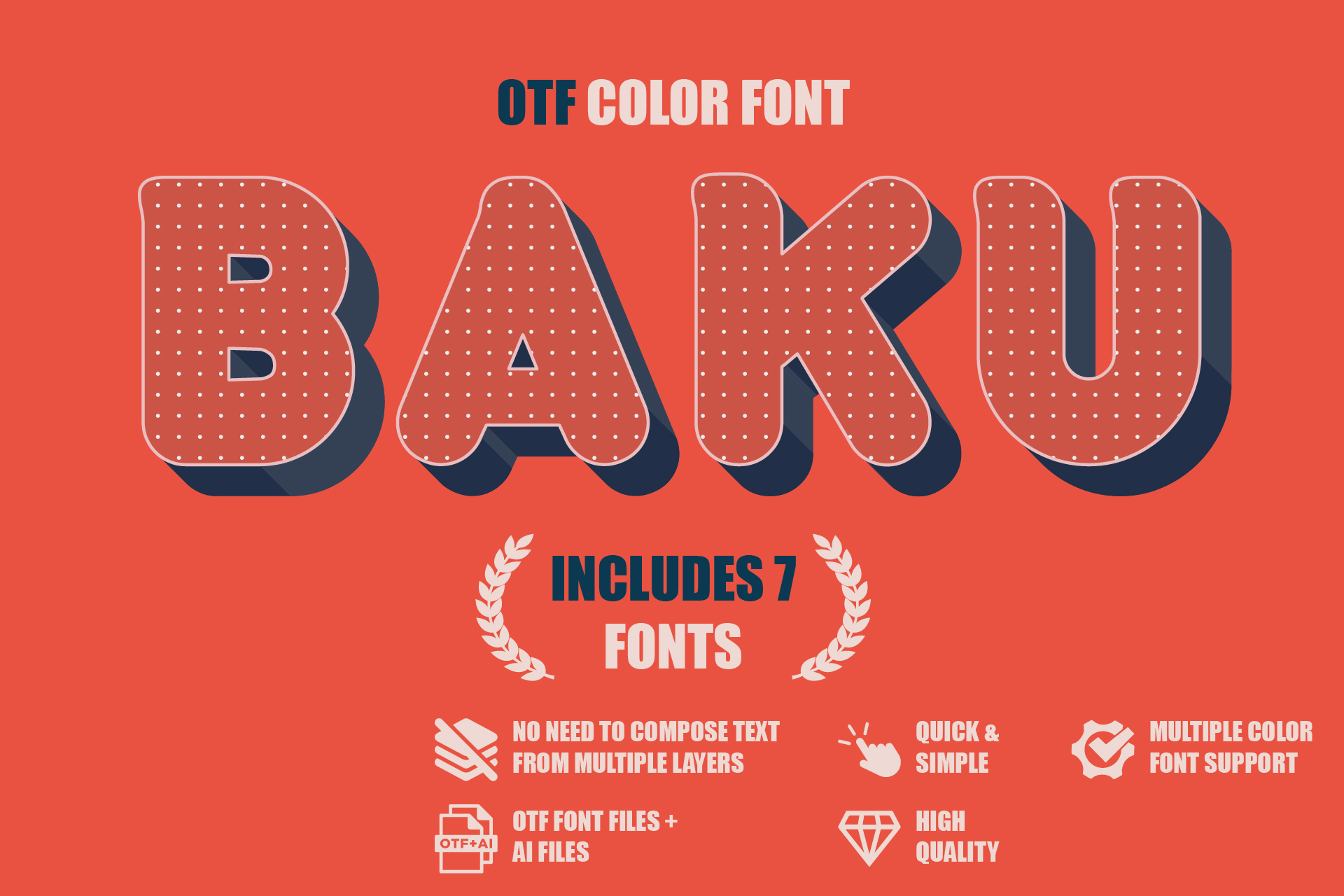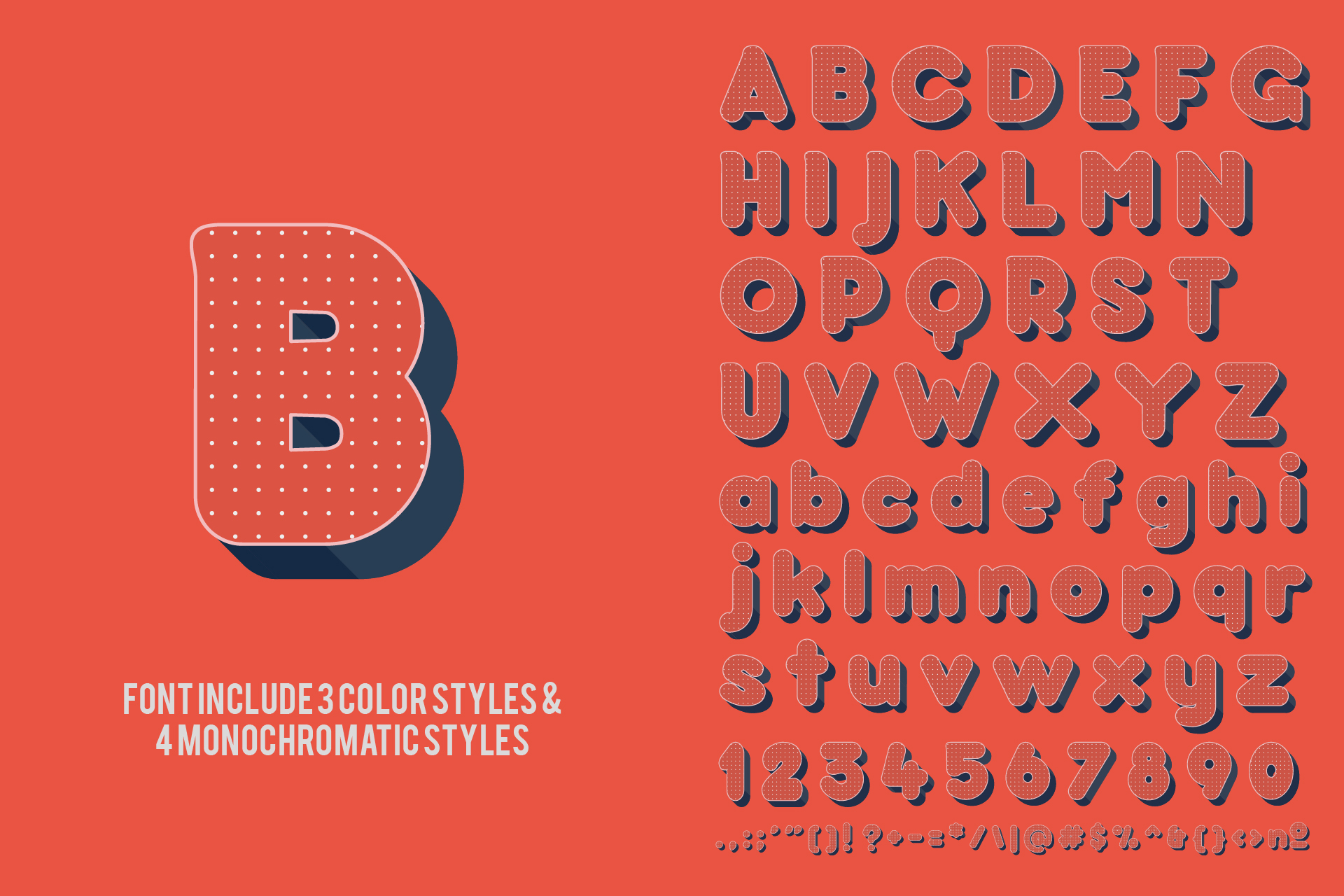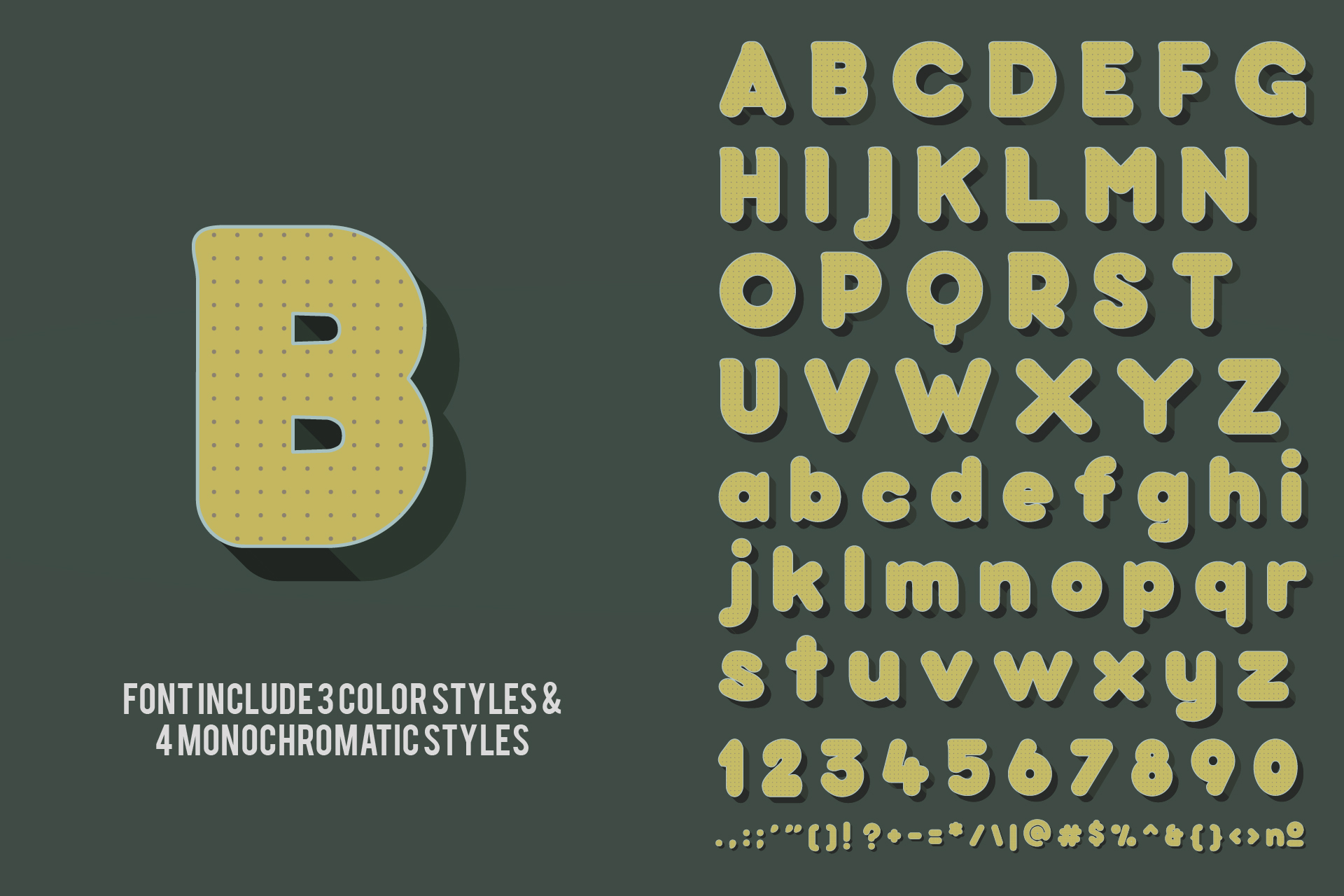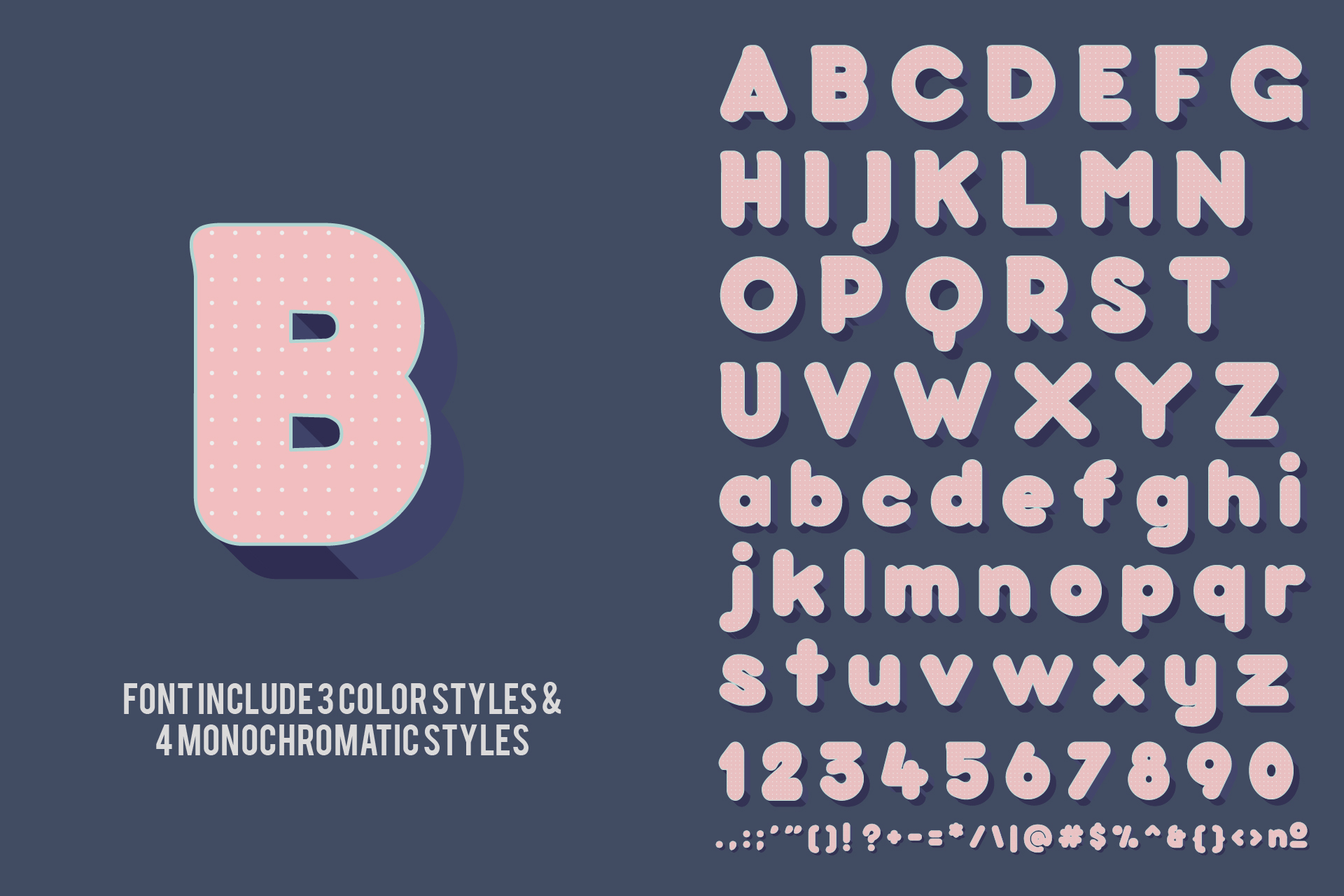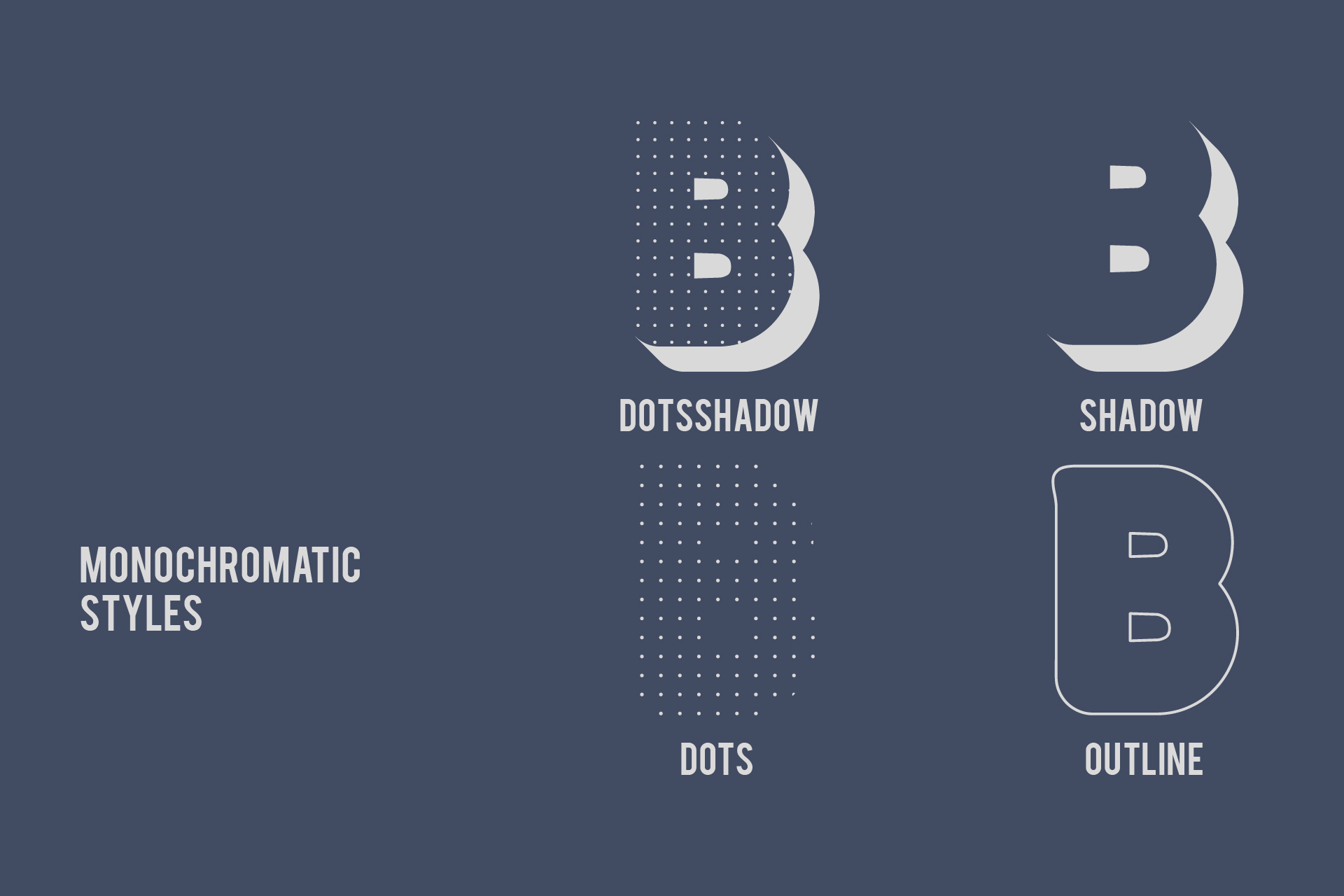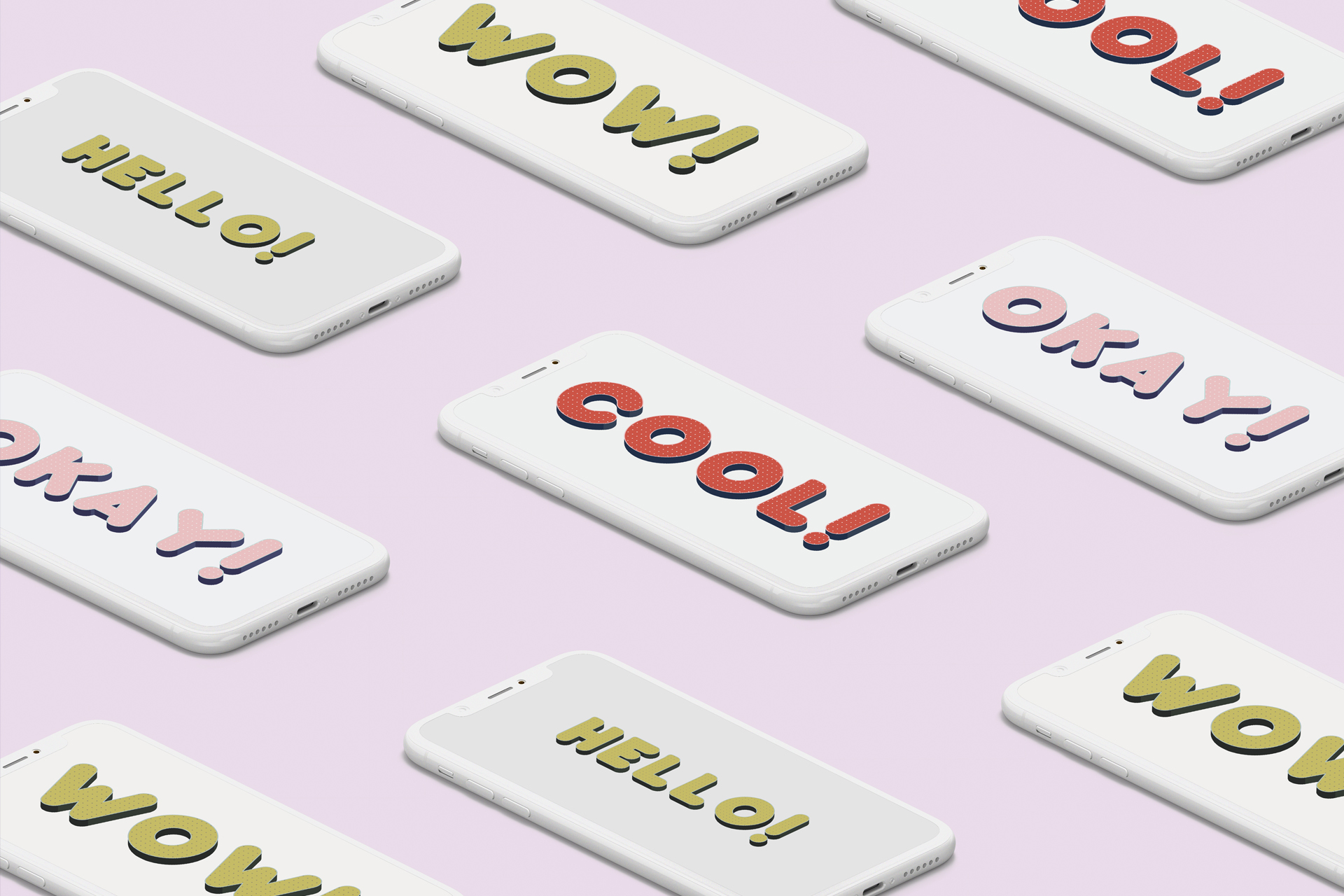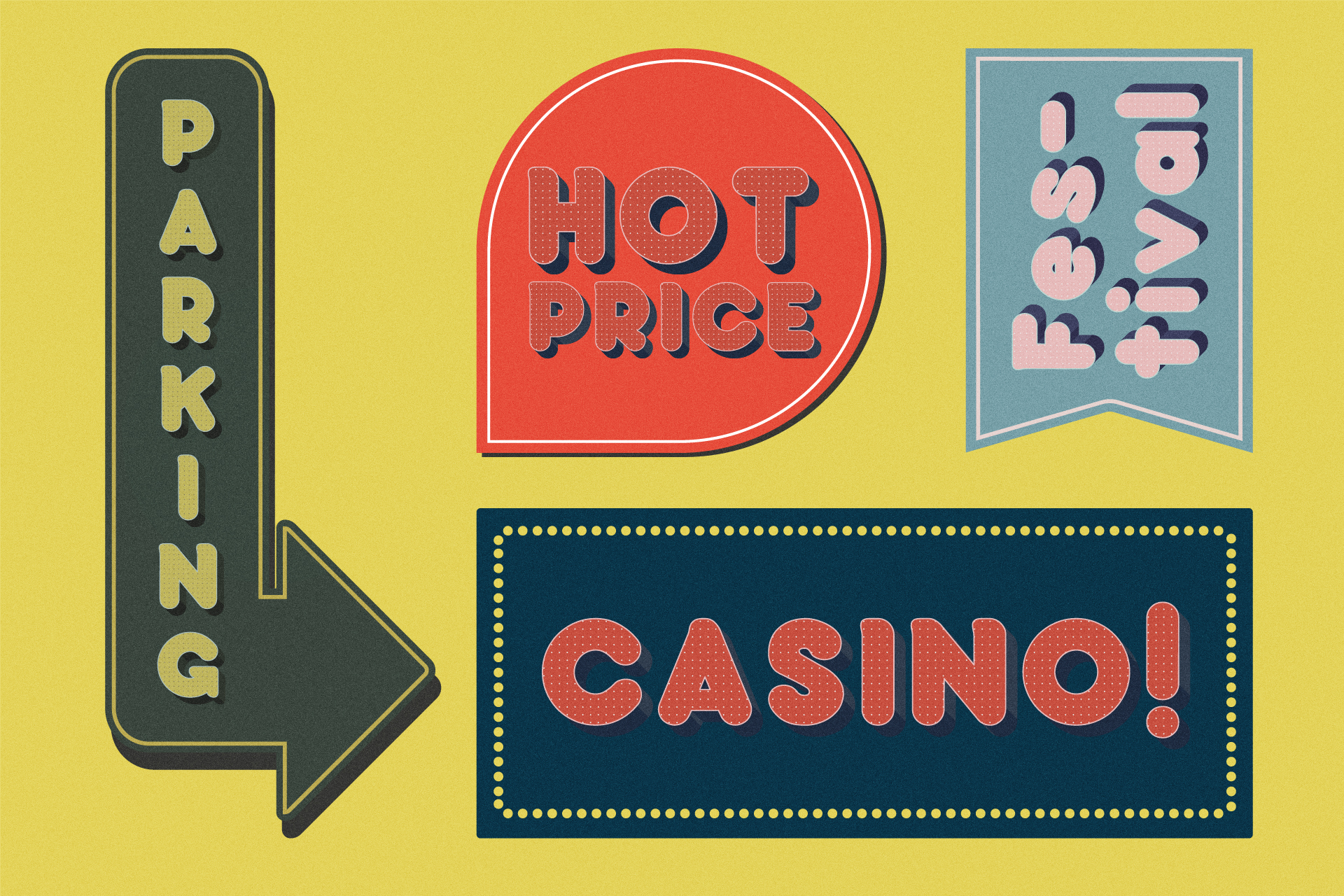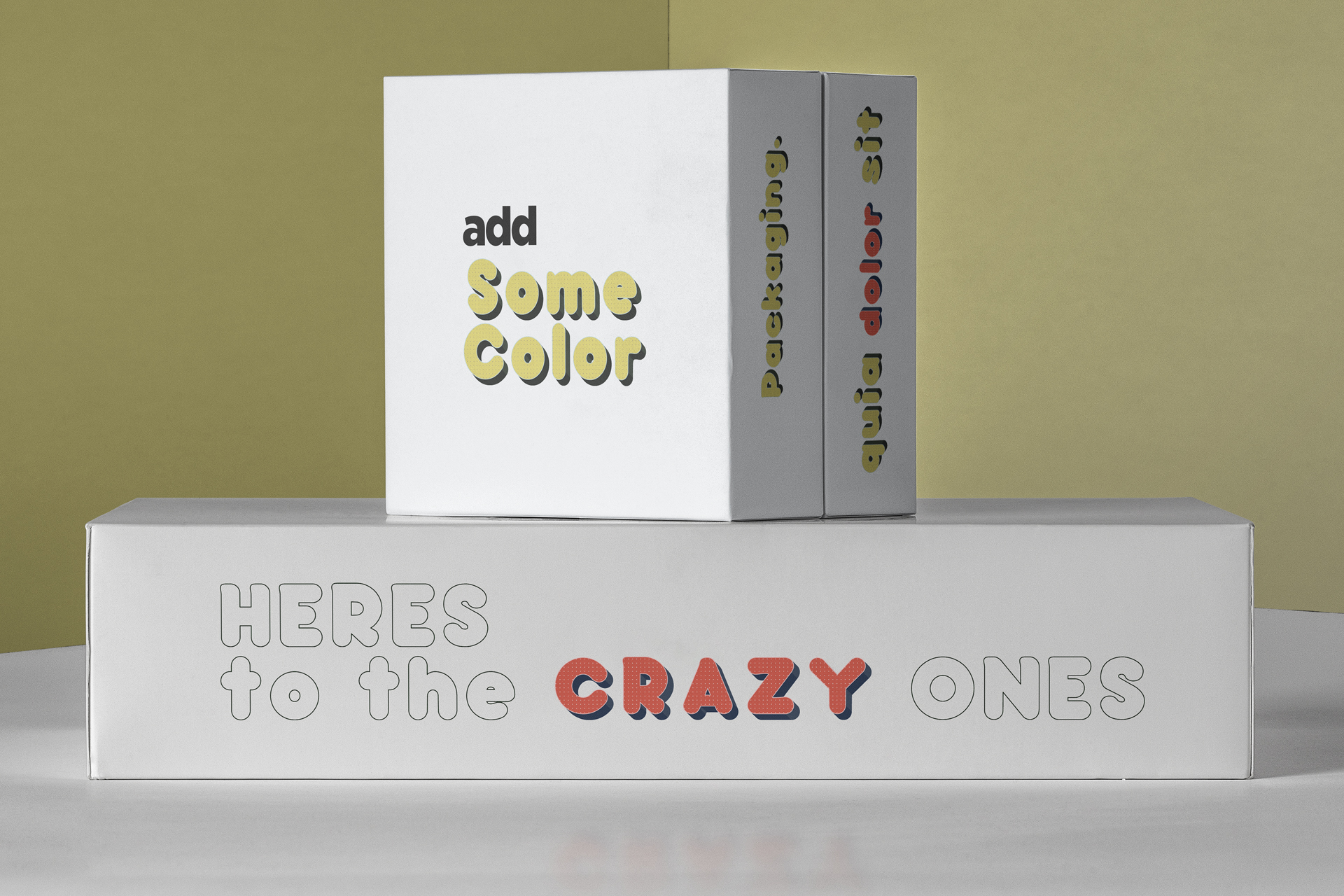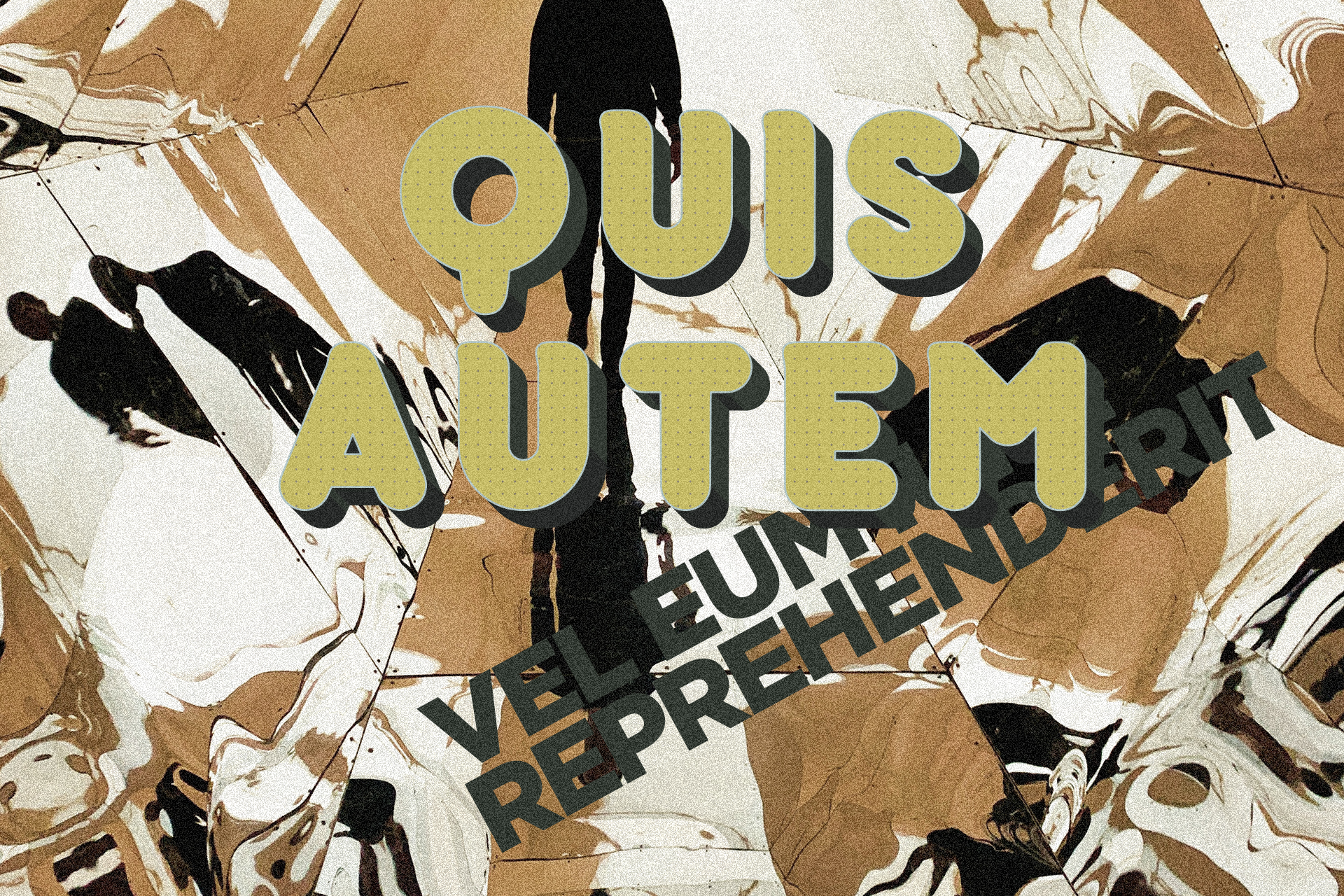
🌿 Introducing OTF color font - Baku. 👑
Sweet, delicious and incredibly charming: Fall in love with the Baku. Baku is a versatile sans serif typeface with both uppercase and lowercase letters! This font is for those who want to show something smooth and modern. Very suitable for any design purpose like magazines, packaging, branding , website header, posters, greeting cards, letterhead, and many more other creative project.